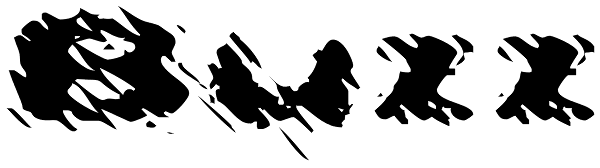
Buzz
Buzz is a loose and informal grungy font with a modern, electric, zappy quality: The font is particularly useful for the promotion of products aimed at young and trendy consumers. It can be used for the design of: CD and DVD covers; clothing...